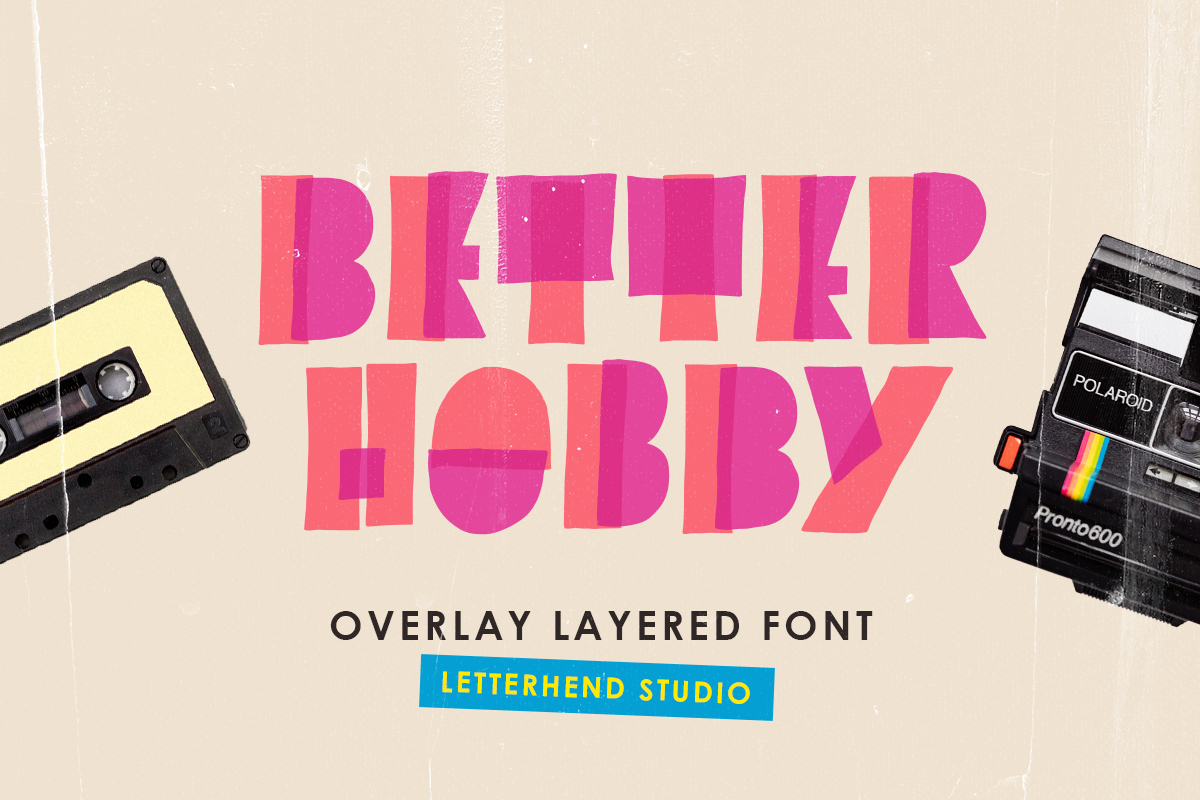
Better Hobby Font
Better Hobby Font is widely used in craft project designs, DIY tutorials, hobby blog headers, creative workshop materials, handmade product packaging, artisan brand logos, scrapbooking designs, and creative community platforms.
Better Hobby Font is an exciting typeface that captures the joy and creativity of hands-on craftsmanship with its playful yet approachable character. This font embodies the spirit of creative exploration and personal expression, making it perfect for brands and projects that celebrate the maker movement and DIY culture.
The Better Hobby Font family includes Regular, Bold, Light, Italic, Condensed, Outline, Shadow, and Decorative variants. This diverse collection offers creators multiple styling options to match their unique artistic vision and project requirements.
Better Hobby Font Free Download provides exceptional creative potential for designers working in the lifestyle and crafting sectors. The font's friendly appearance and approachable personality make it ideal for connecting with audiences who value authenticity, creativity, and personal touch in their projects. This typeface bridges the gap between professional design standards and the warm, inviting nature of hobby-based communications.
The distinctive charm of Better Hobby Font lies in its ability to convey enthusiasm and creativity without sacrificing readability. Each letterform has been carefully crafted to maintain clarity while expressing the spontaneous energy of creative pursuits. The font's balanced proportions and inviting curves create an atmosphere of warmth and accessibility that resonates with craft enthusiasts and creative professionals alike.
Creative agencies and independent makers choose Better Hobby Font for its versatility in representing authentic, hands-on experiences. The typeface works beautifully in tutorial materials, crafting websites, maker space branding, and artisan marketplace communications. Its approachable style makes complex instructions feel manageable and inspires confidence in creative endeavors.
The thoughtful design of Better Hobby Font includes contextual alternates and stylistic sets that add variety to repetitive text while maintaining consistent brand personality. These features ensure that longer content maintains visual interest and reflects the dynamic, ever-evolving nature of creative hobbies and maker culture.